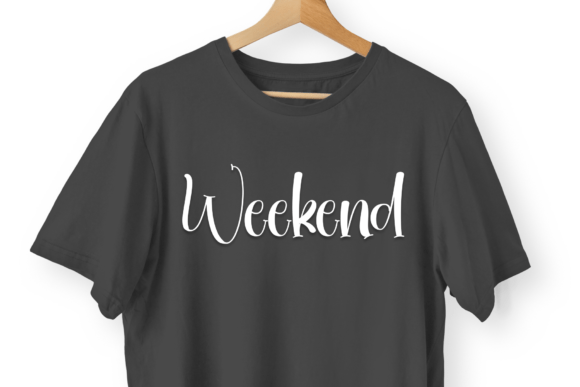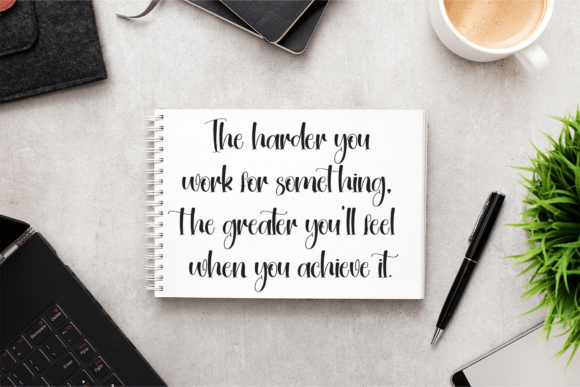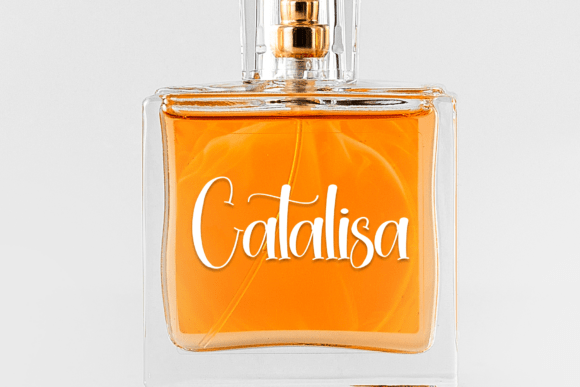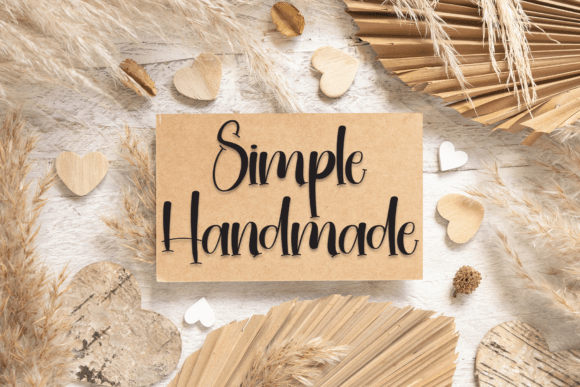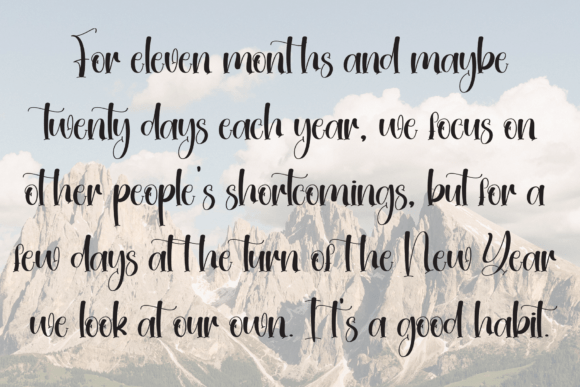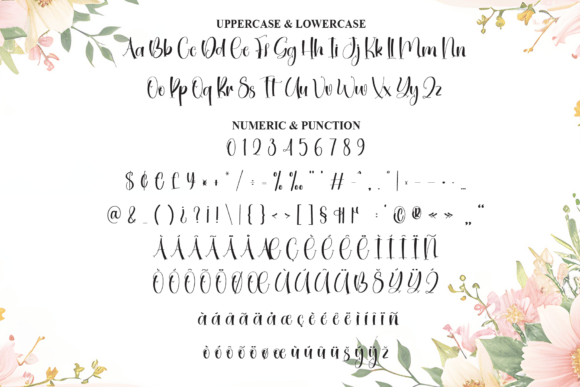
The Perfect Script for Your Next Project: Handwritten Font
Do you remember the first time you saw a beautiful handwritten note from a loved one? The way the ink flowed across the page, the imperfections that made it uniquely yours, and the emotions it evoked? That’s exactly the feeling you’ll want to convey in your designs with the Handwritten Font.
This beautifully crafted script font is designed to bring elegance and charm to any project, from wedding invitations to branding and social media. With its fluid strokes and stylish letterforms, it’s the perfect choice for adding a handwritten touch to your designs. Whether you’re a professional designer or a creative enthusiast, the Handwritten Font is a valuable addition to your toolkit, offering a unique and sophisticated look that’s sure to leave a lasting impression.
Key Features of Handwritten Font
- Unique Characteristics: The font features natural, hand-written strokes and subtle imperfections, giving it a unique and authentic look that simulates handwritten text.
- Font Style: Available in regular, italic, and bold styles, providing options for varying emphasis and tone in designs.
Review of Handwritten Font
Overall, I think Handwritten Font is a charming addition to any design project. ✨ The natural, cursive feel it brings is perfect for adding a touch of personality to your work. It’s especially great for titles, headings, and short blocks of text where you want to convey a sense of warmth and approachability.
The font is well-suited for a wide range of applications, from advertising and marketing materials to wedding invitations and social media graphics. ✨ Its versatility is one of its strongest assets, making it a great choice for designers who want a font that can adapt to different contexts.
- ⚠️ Limited legibility in smaller font sizes: While Handwritten Font looks great in larger sizes, it can become difficult to read when reduced to smaller sizes.
- ⚠️ Not ideal for long blocks of text: Due to its cursive nature, Handwritten Font can become overwhelming when used for extended passages of text.
Overall, I’d give Handwritten Font a solid 4 out of 5 stars. It’s a great choice for designers who want to add a touch of whimsy and personality to their work, but may not be the best option for projects that require high legibility or lengthy text blocks.
Alternatives to Handwritten Font for Designers
Script Font
Script Font is a cursive style of font that mimics handwritten text. It’s ideal for use in titles, headings, and short paragraphs where a touch of elegance is required. Unlike Handwritten Font, Script Font is more uniform and less messy, making it perfect for formal designs.
Cursive Font
Cursive Font is a style of font that is meant to resemble handwriting, but it’s more polished and refined compared to Handwritten Font. It’s suitable for use in body text, especially when a more formal tone is needed. Cursive Font is also easier to read than Handwritten Font, making it a popular choice for publications and websites.